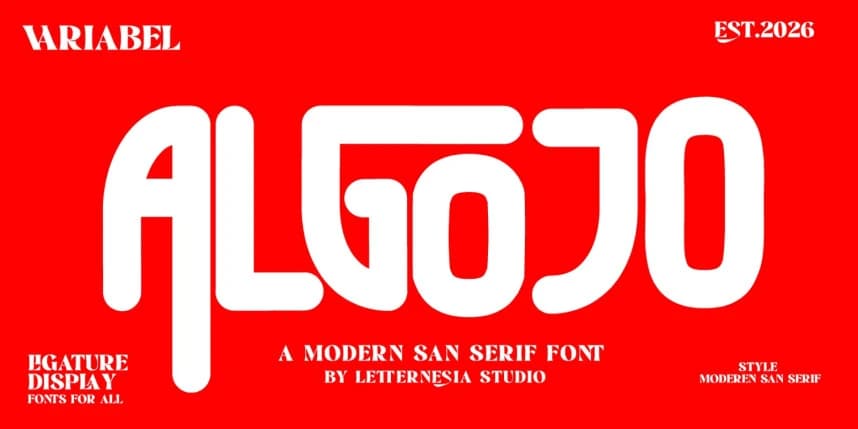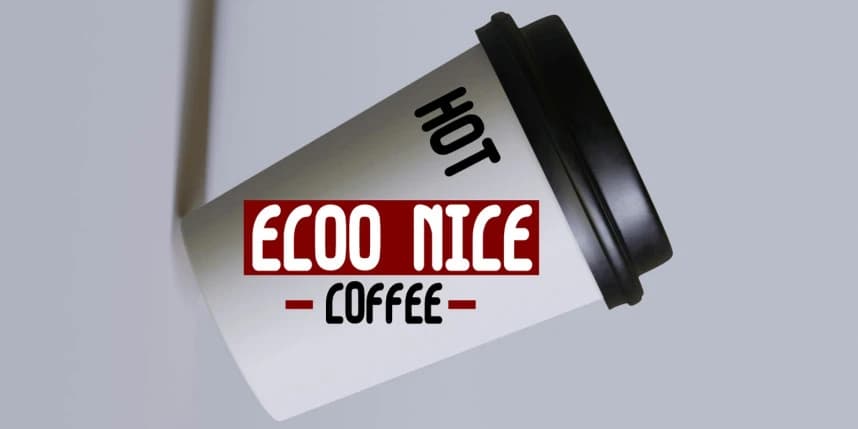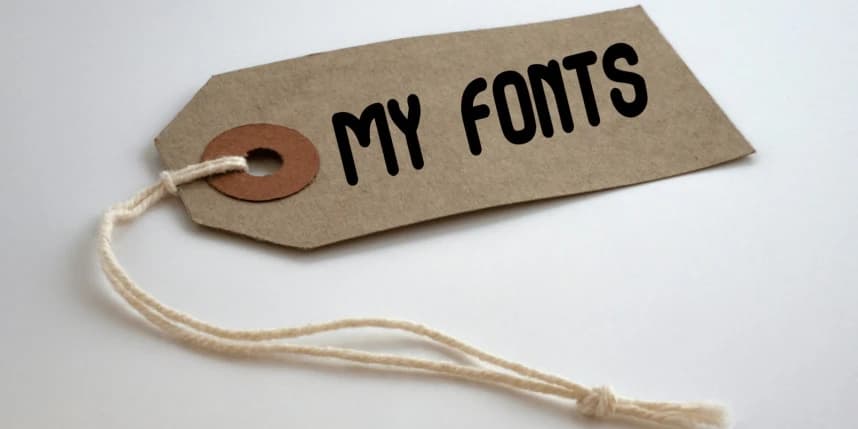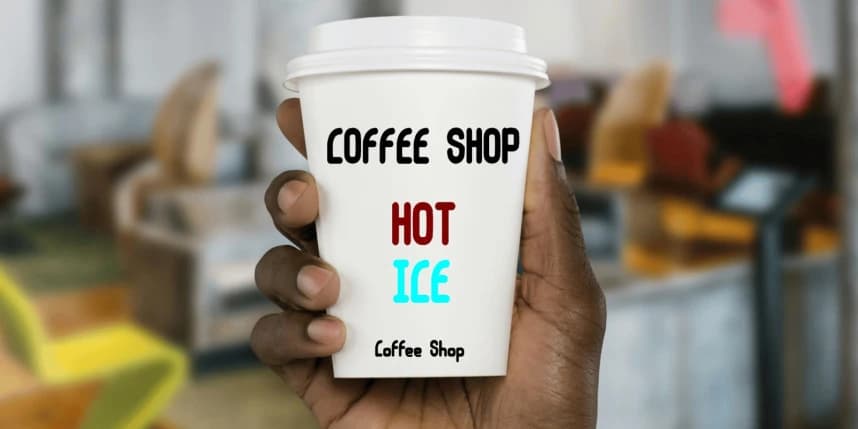
Algojo Font
ALGOJO Font is a modern display sans serif font designed with a bold, confident, and clean aesthetic. Featuring strong letterforms with a minimalist touch, ALGOJO stands out effortlessly and captures attention in any visual composition.